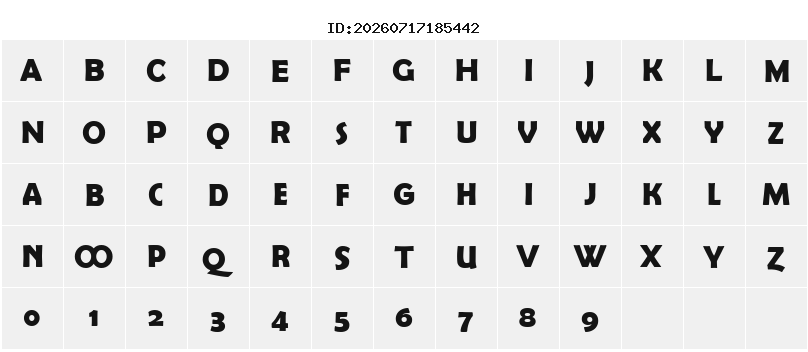
Berlinsans Preview
• Font Name: Berlinsans
• Font Style: DemiExpert
• Font ID: Macromedia Fontographer 4.1 Berlinsans DemiExpert
• Full Font Name: Berlinsans DemiExpert
• Version: Macromedia Fontographer 4.1 12/26/97
• PostScript Name: BerlinsansDemiExpert
• Character Count: 242
About Berlinsans.ttf
Berlinsans.ttf is a modern, elegant sans-serif font designed for ultimate readability and visual harmony. Perfect for branding, headlines, web design, and print materials.